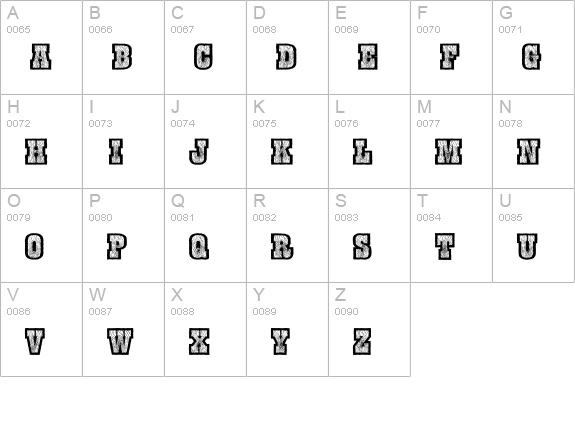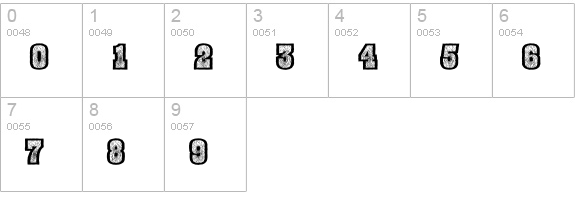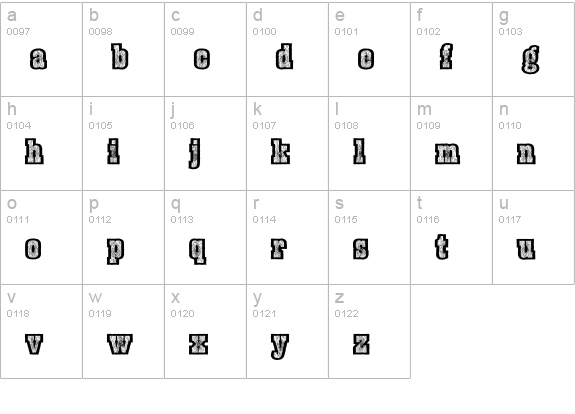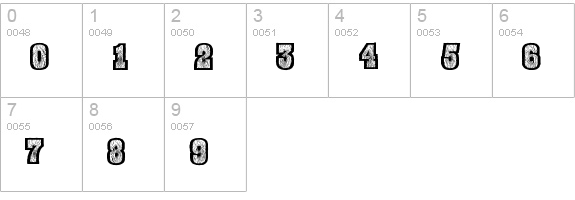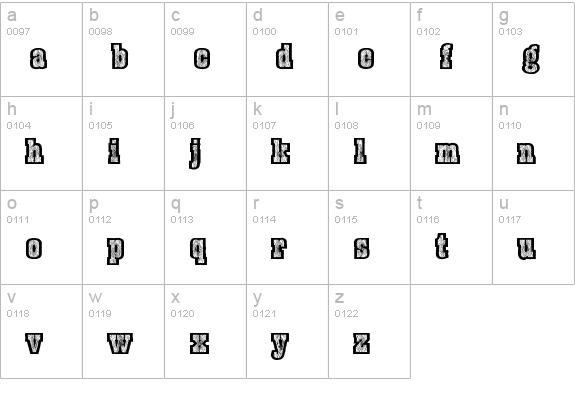
BurrisGhostTown Font Details
BurrisGhostTown font is a hauntingly beautiful typeface inspired by the abandoned remnants of a once-thriving ghost town. Its rugged and weathered appearance captures the essence of a bygone era, with its worn edges and aged textures evoking a sense of mystery and nostalgia. This font is perfect for projects that require a touch of history and a hint of the supernatural. Best of all, BurrisGhostTown font is available for free download at FontsMarket.com. Embrace the eerie charm of this unique typeface and add a touch of ghostly allure to your designs today.